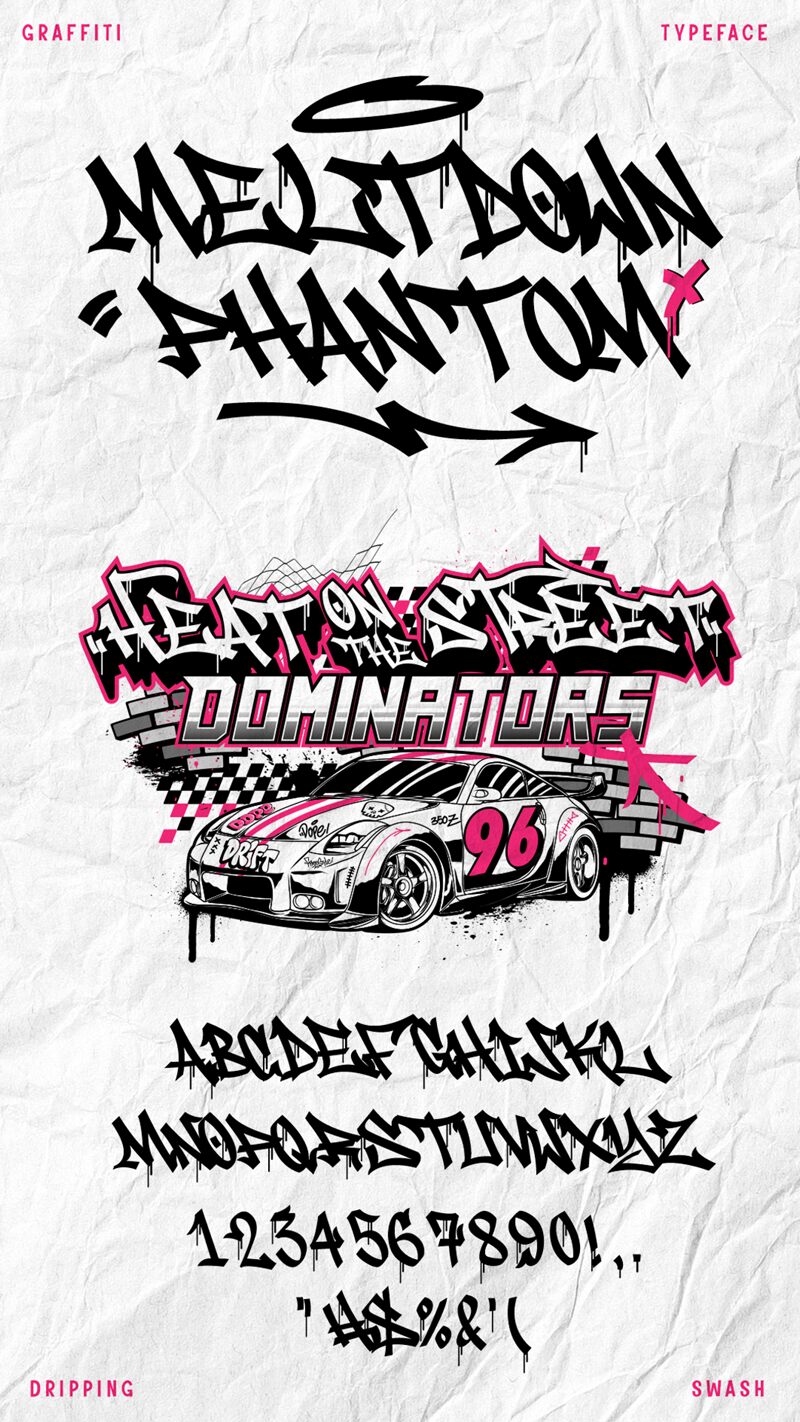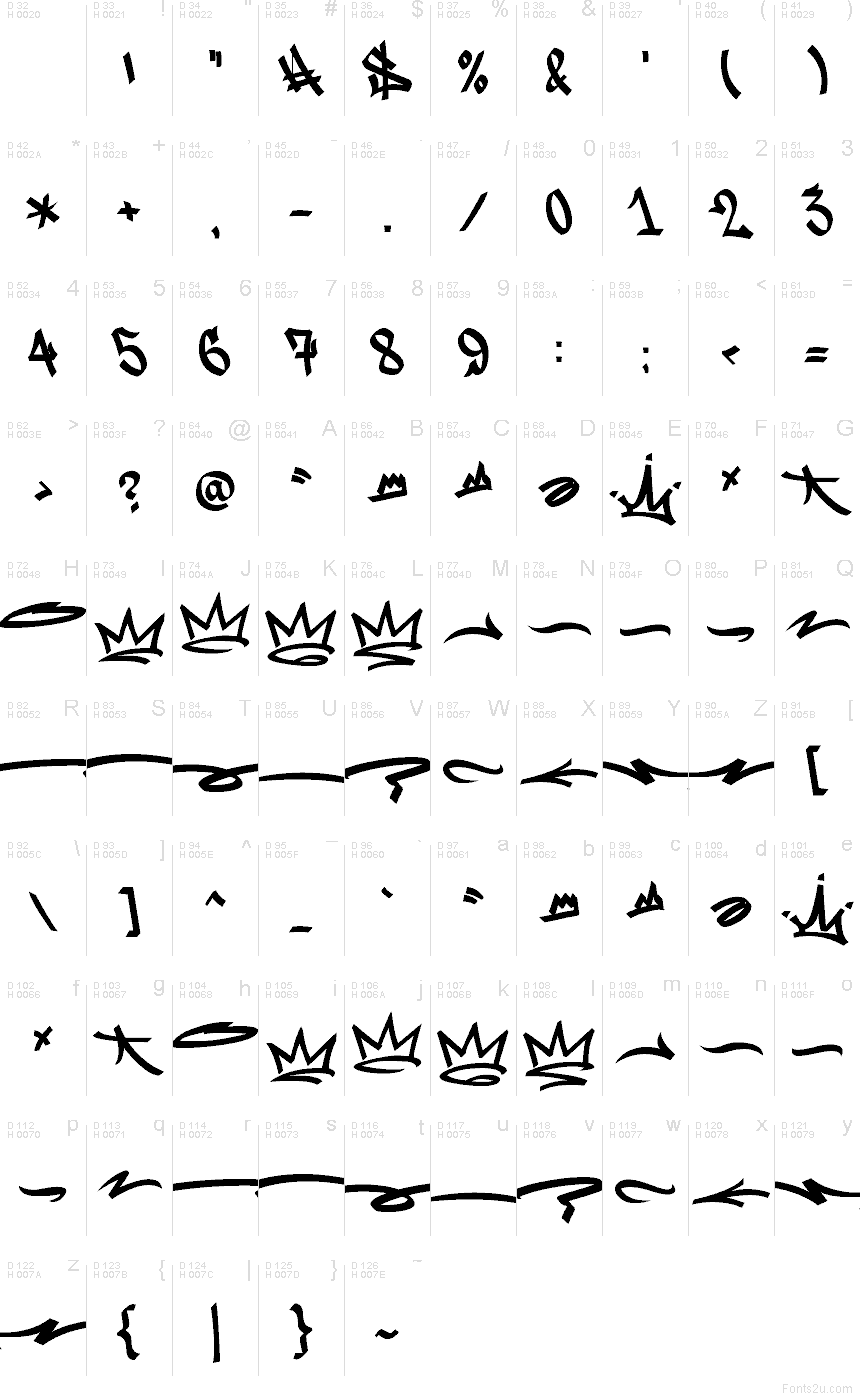
Meltdown Phantom Swash
Meltdown Phantom Swash font by Muhammad Panji Ramdhani of Sipanji x Cikareotype is a free graffiti font, a typeface that feels like wet ink dragged fast across a wall. Its signature is the endless swash: razor flicks, looping cuts, and long, low strokes that stitch words together into one restless tag. It reads more like motion than lettering—slick, tense, and a little menacing.
Using Meltdown Phantom Swash shines on streetwear logos, album covers, skate posters, horror teaser art, Twitch/YouTube headers, event flyers, and gritty brand marks. Set it big so the swashes can breathe, and pair it with a plain condensed sans for dates, credits, or pricing—this free font does the shouting while the sans keeps things clear.